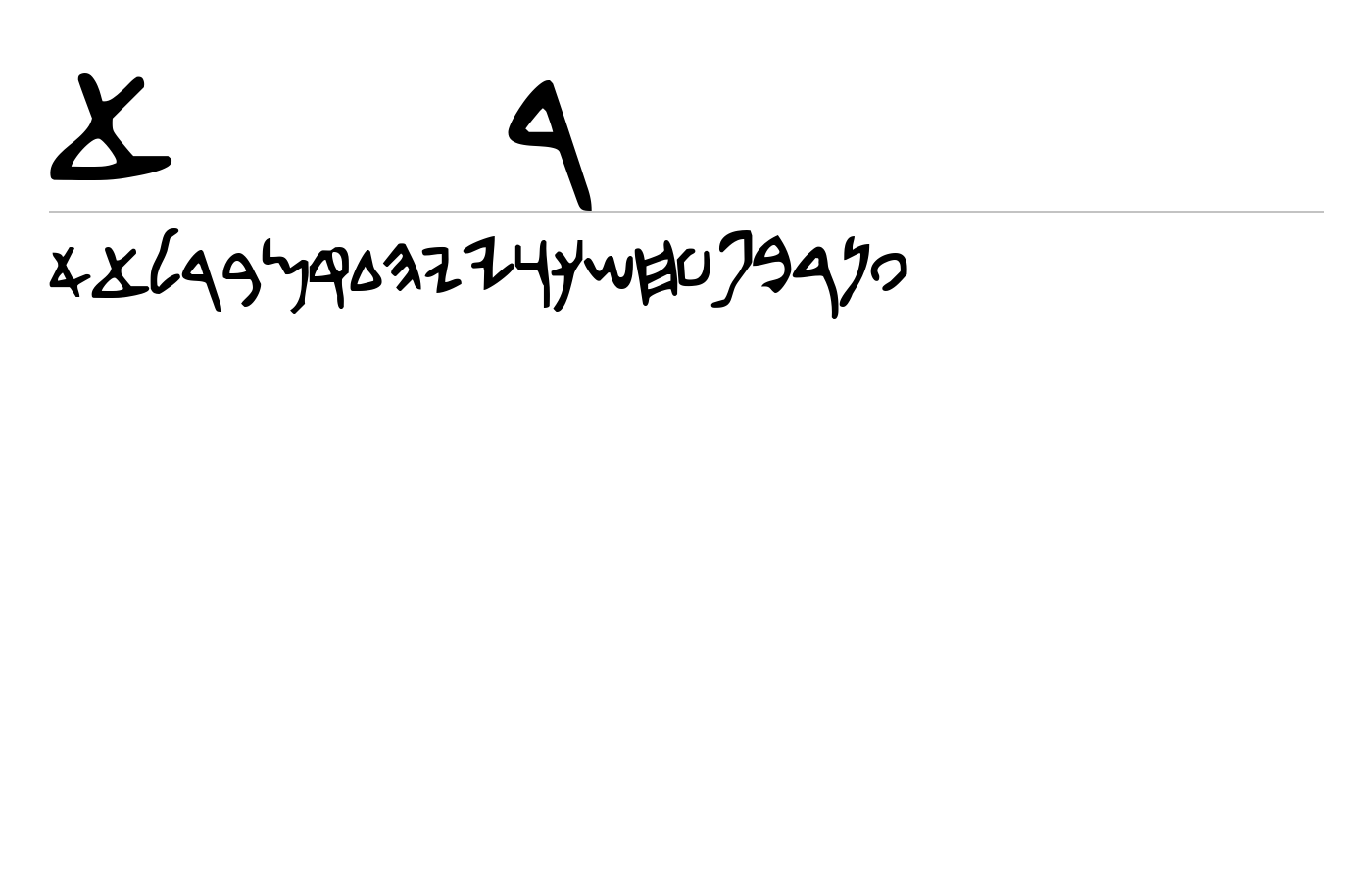
Beth David is an unconventional, hand-drawn script font characterized by irregular, playful strokes that give it a raw and artistic feel. Its quirky letterforms and uneven lines make it suitable for projects that aim to convey creativity, individuality, and a casual, informal vibe. This font works best for unique logos, playful branding, or art-focused designs where a personal touch is desired.
Beth David Font
About Beth David Font